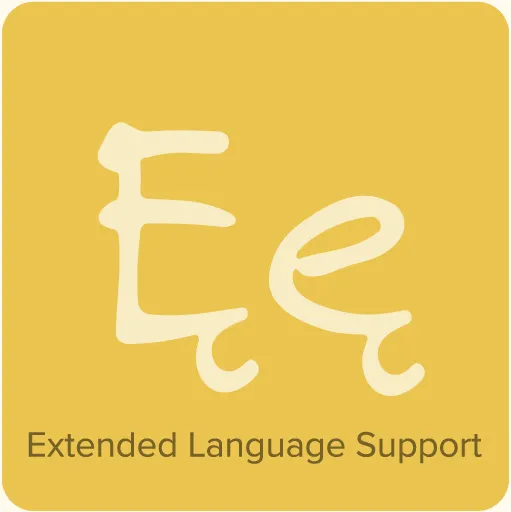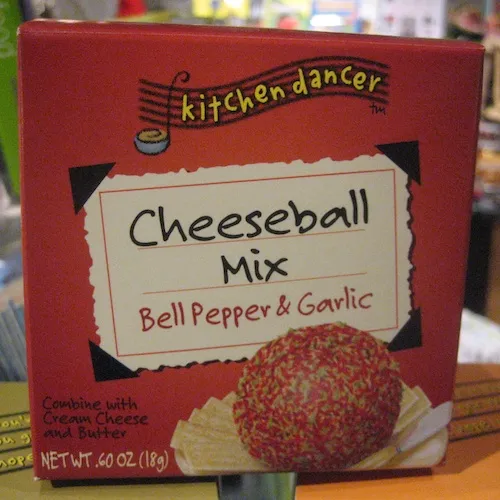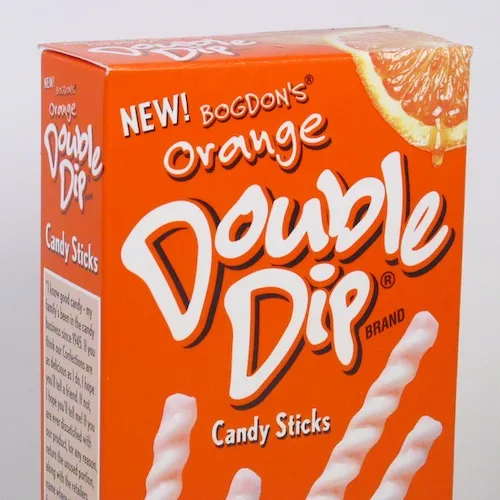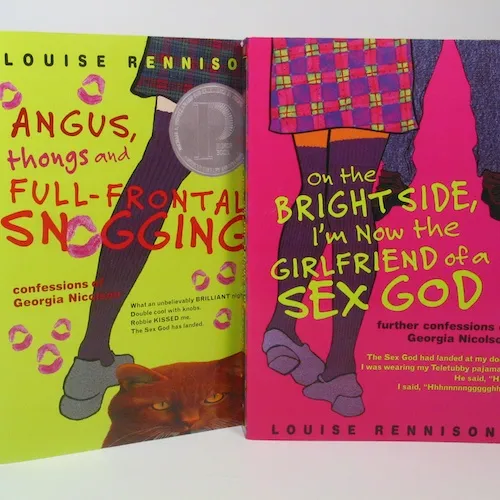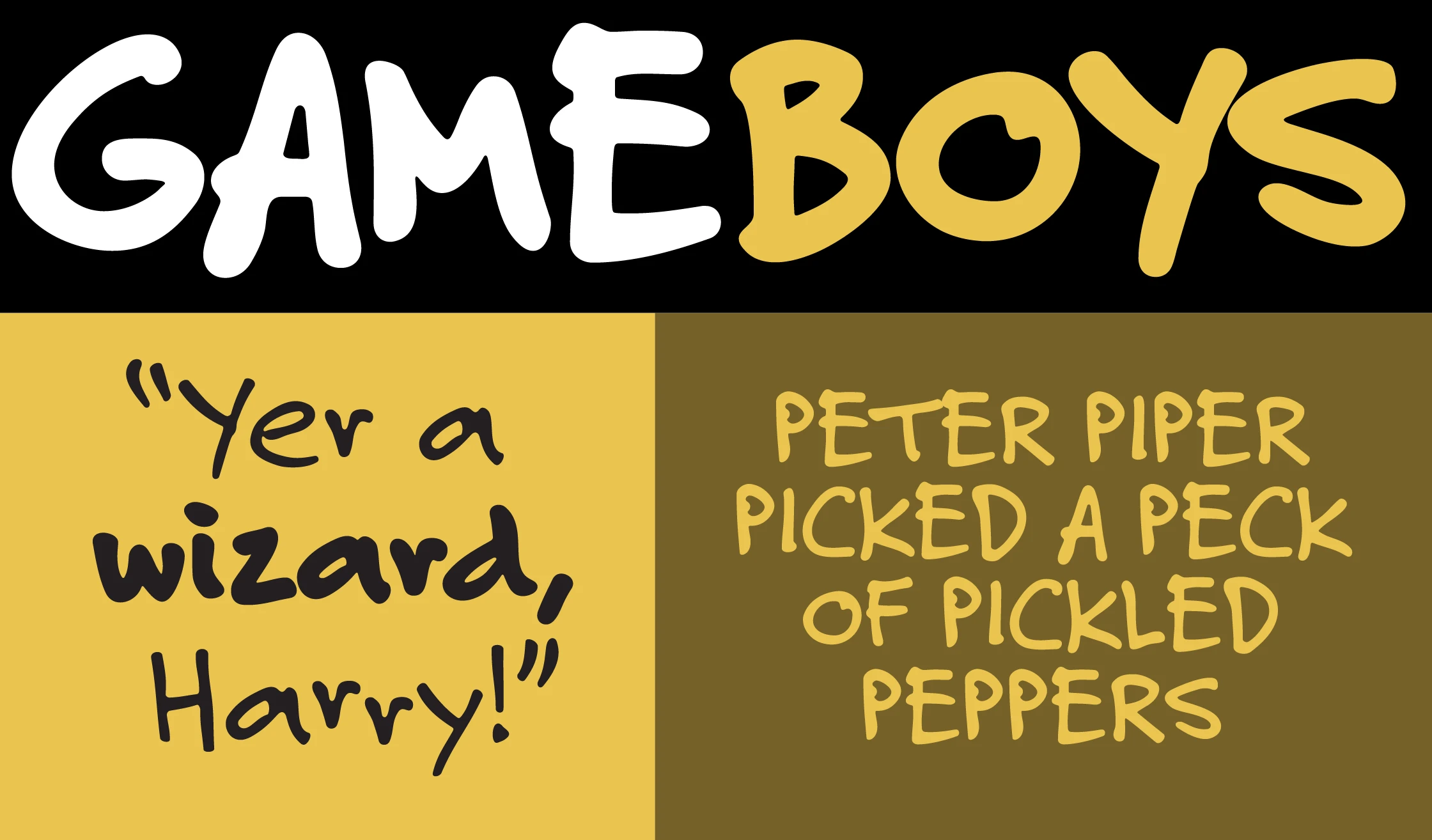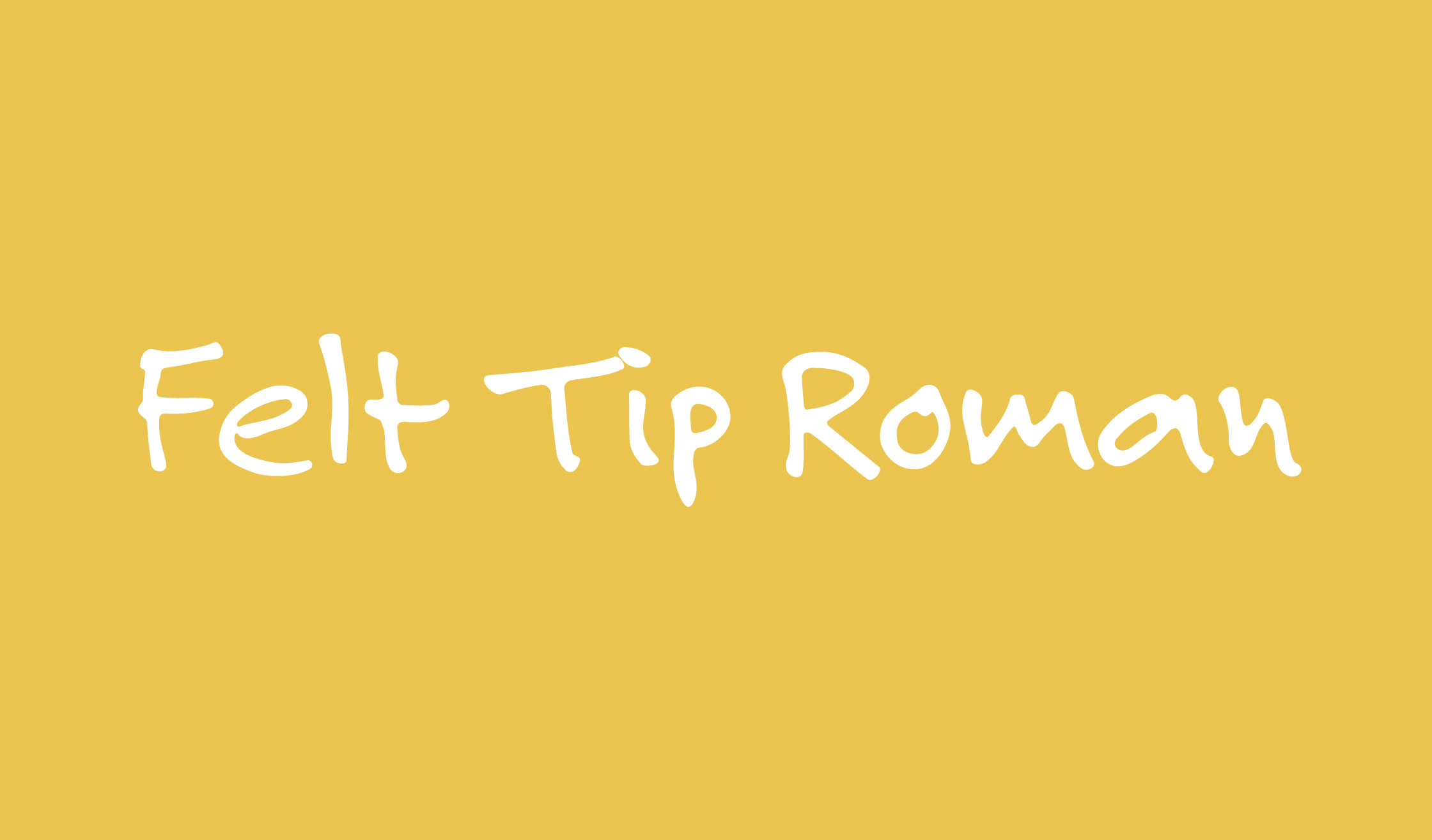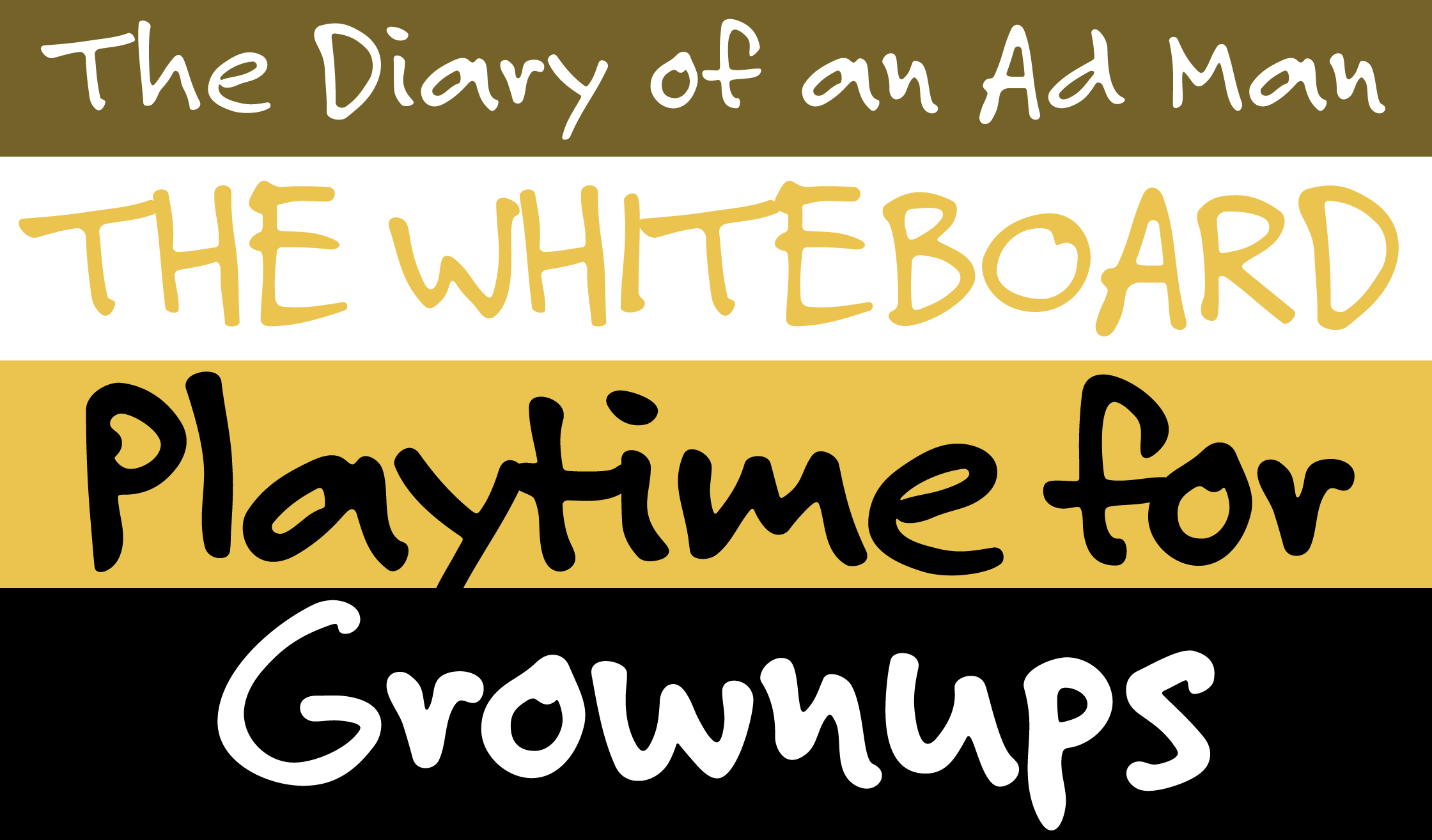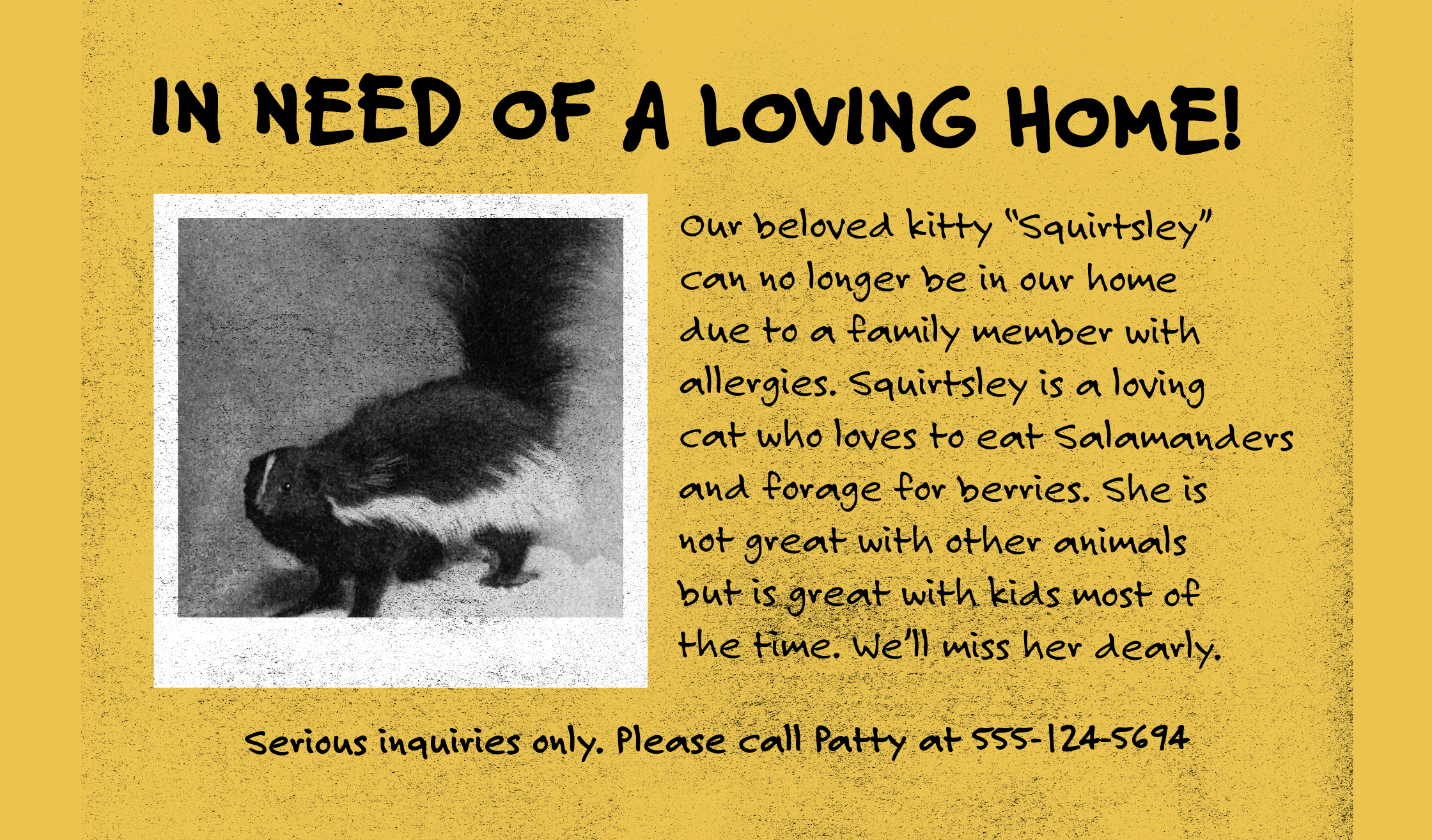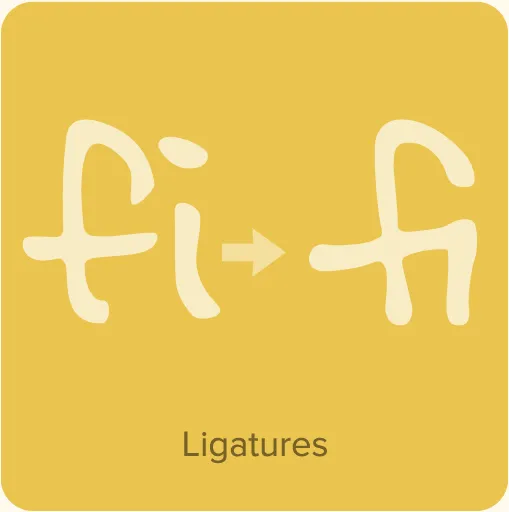
- Three weights: Regular, Bold, and Heavy.
- Ligatures.
- Extended language support for most Latin-based Western and Central European languages.
Felt Tip Roman Specimens
Felt Tip Roman Original Art
It’s actually the back of a sheet from a phone message pad. You can see some of the rejected characters here (that “section” symbol is tricky), but mostly I went with the initial sketch.